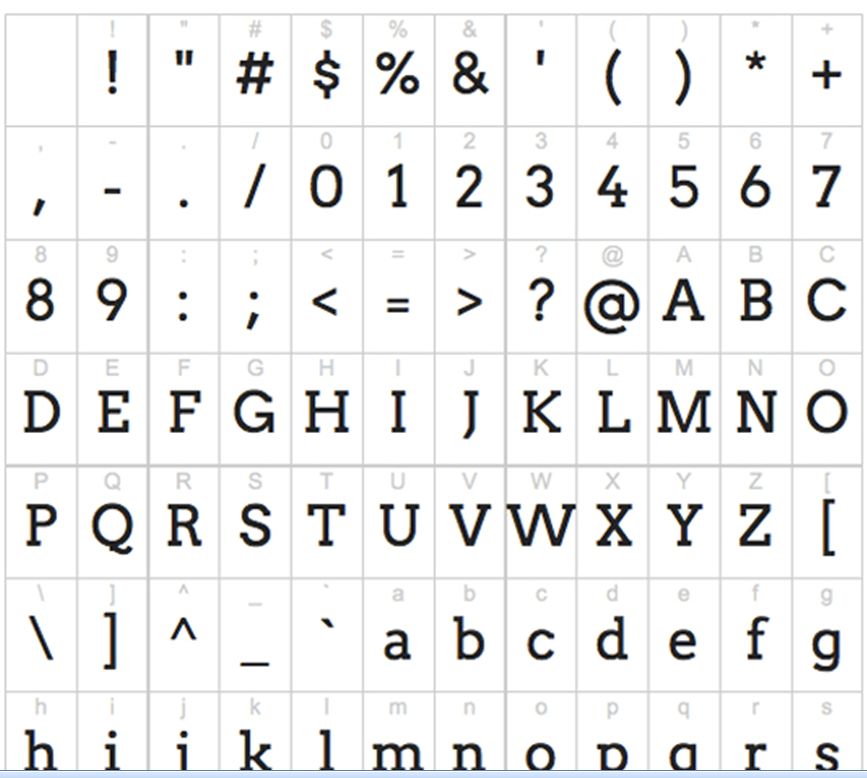
Awesome Beautiful Fonts For Websites References. Arvo is a bulky slab serif that is equally suited for. Web a beautiful and correct font on the site is very important, but it is even more important that the font is appropriate and understandable.
There has to be a couple more beautiful than those two. They might be better suited for the 16 most. Arvo is a very good slab serif font family, created by anton koovit.
Arvo Is A Very Good Slab Serif Font Family, Created By Anton Koovit.
Arvo Is A Bulky Slab Serif That Is Equally Suited For.
Web This Example Has A Friendly, Retro Feel.